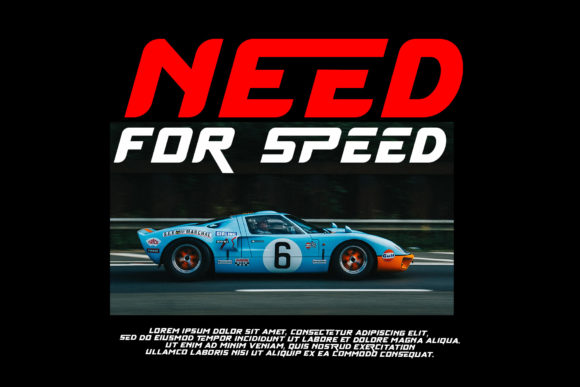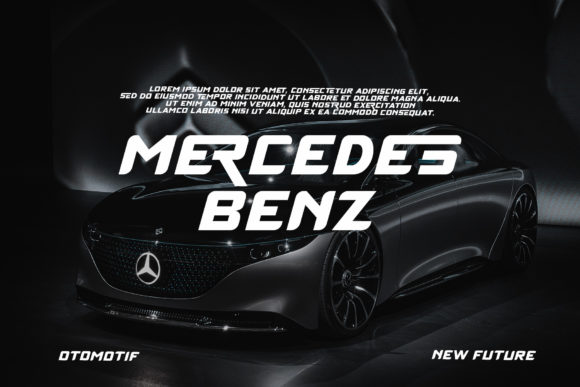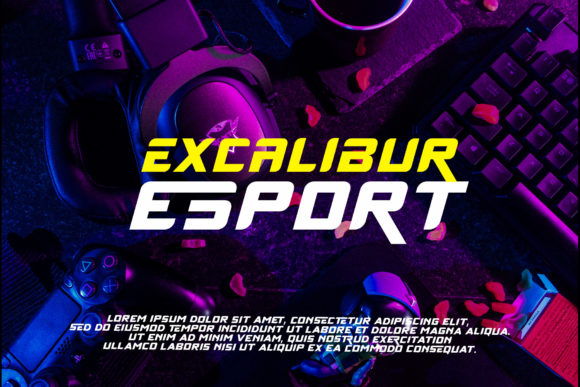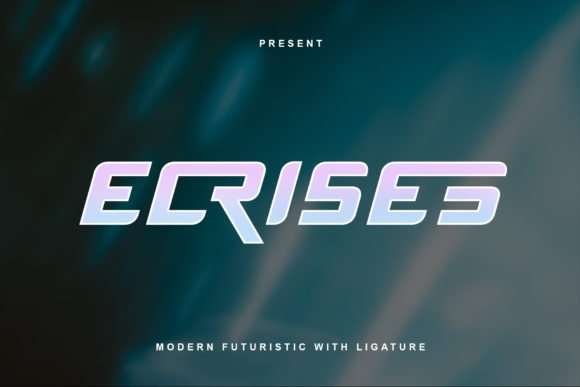
Introduction to Ecrisis Font
Ecrises is a cool and futuristic display font.
This font is ideal for writing web designs, business cards, or pretty much anything else that requires a bold, modern touch .
Ecrisis Font offers exceptional quality and versatility, making it a valuable addition to your design toolkit. Whether you’re creating for personal projects or commercial use, Ecrisis Font delivers professional results.